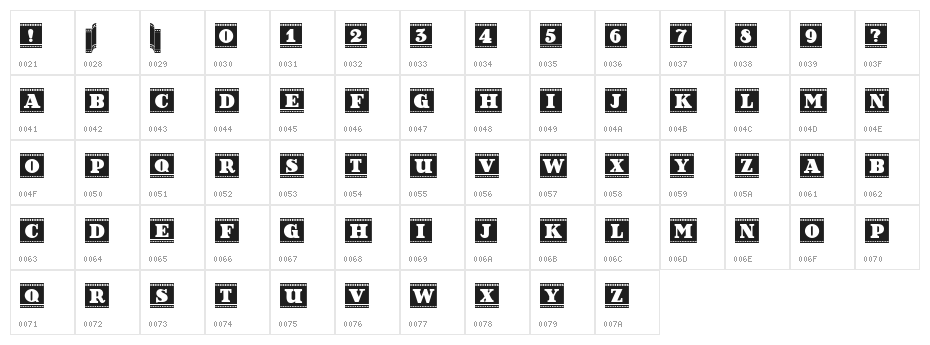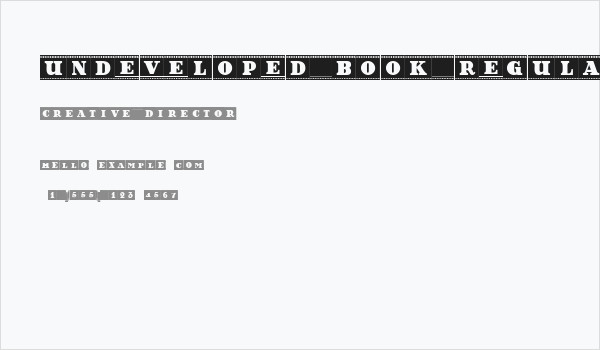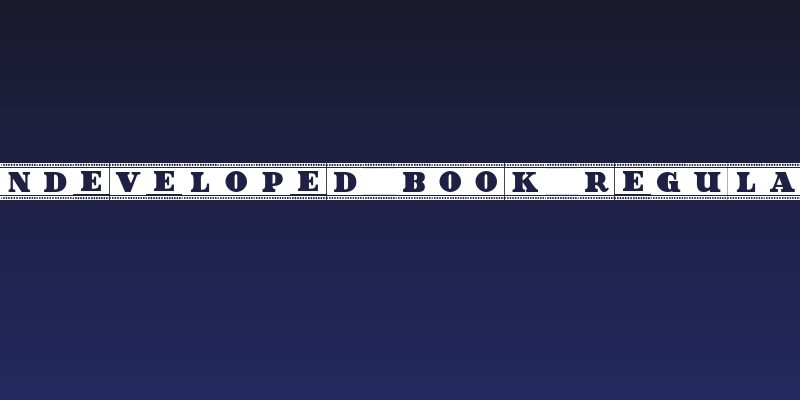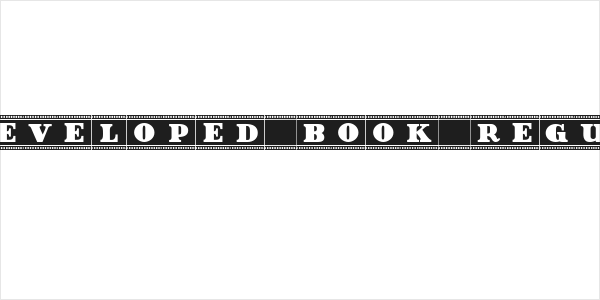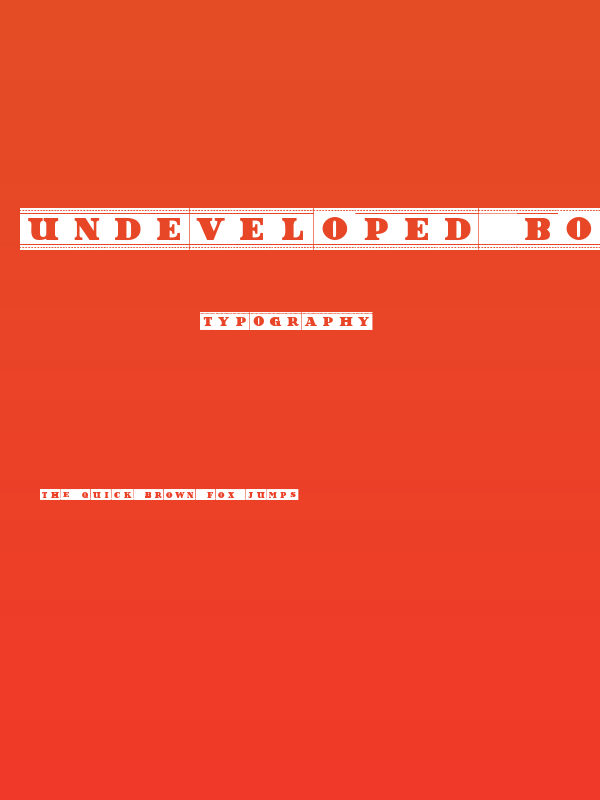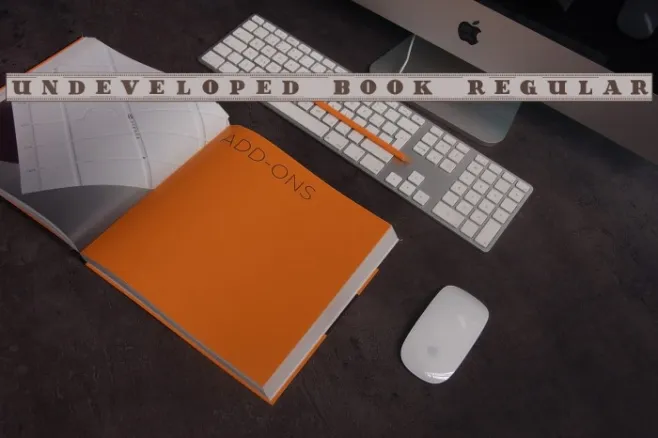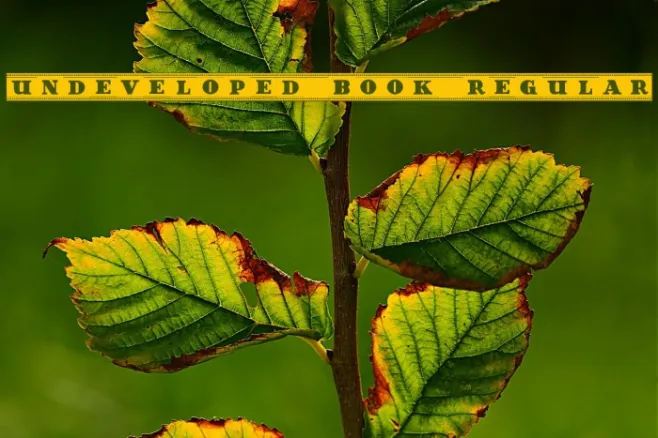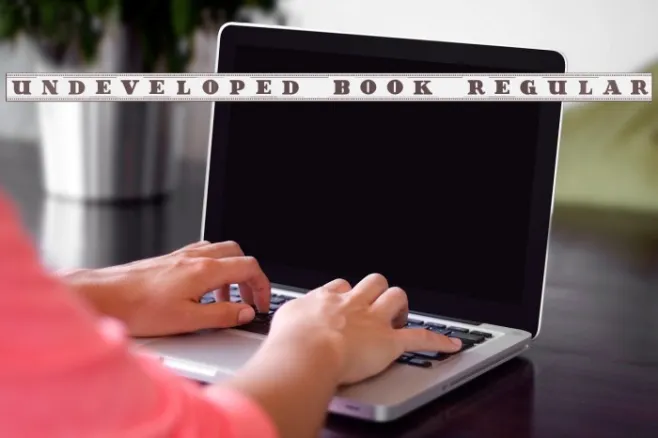
Undeveloped Book Regular Font
Undeveloped Book Regular Description
This font features a unique design reminiscent of film strips, with each character enclosed within a rectangular frame that mimics the perforated edges of traditional film. The characters themselves are bold and uppercase, with a classic serif style that adds a touch of elegance. The numbers and special characters follow the same design, maintaining consistency across the font. The overall appearance is striking and decorative, making it ideal for projects that require a vintage or cinematic theme. The contrast between the thick strokes of the characters and the thin lines of the film strip border creates a visually appealing effect.
| Proposed Projects | Perfect for movie posters, vintage-themed designs, film festival branding, and creative projects that require a cinematic touch. |